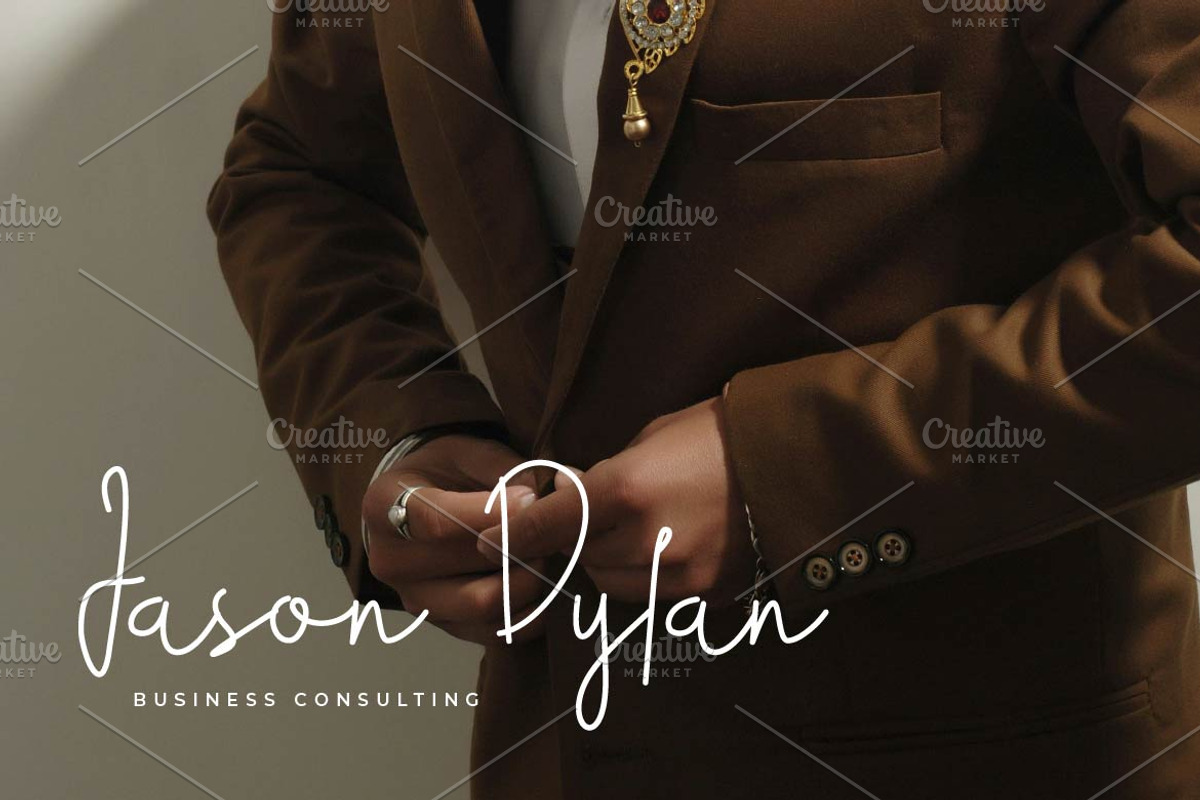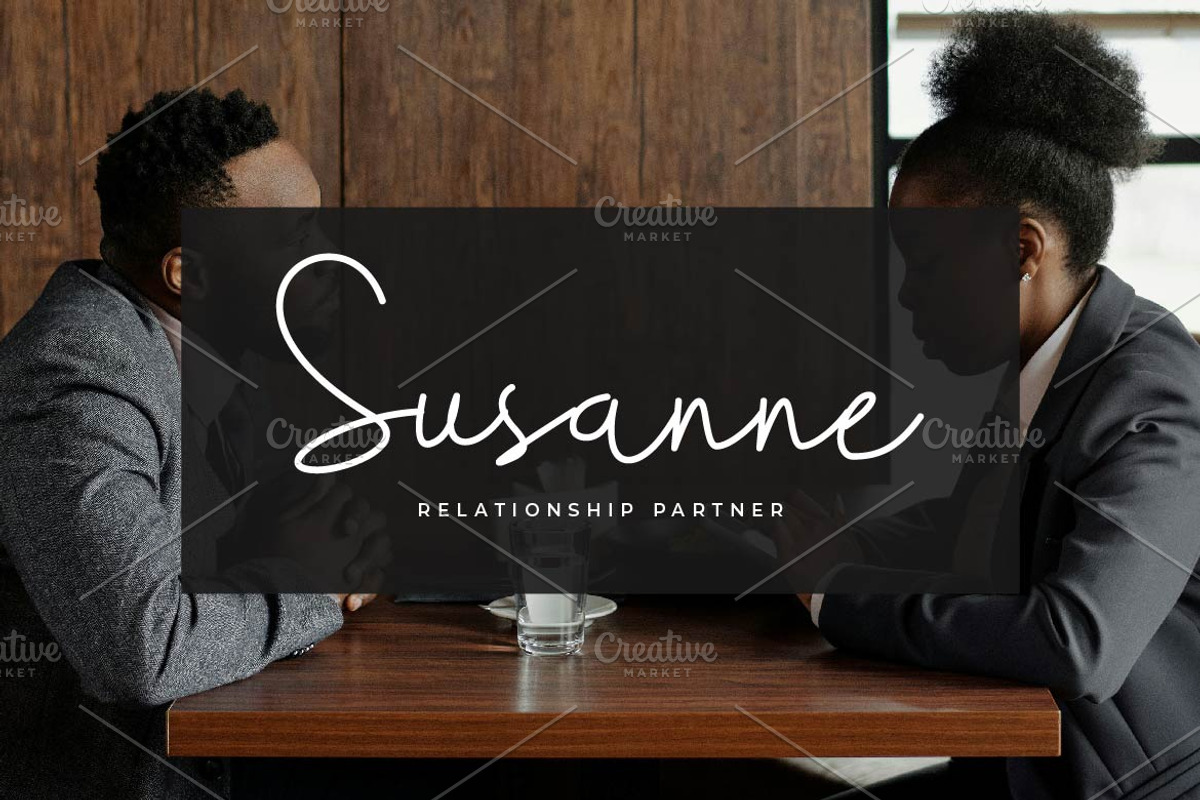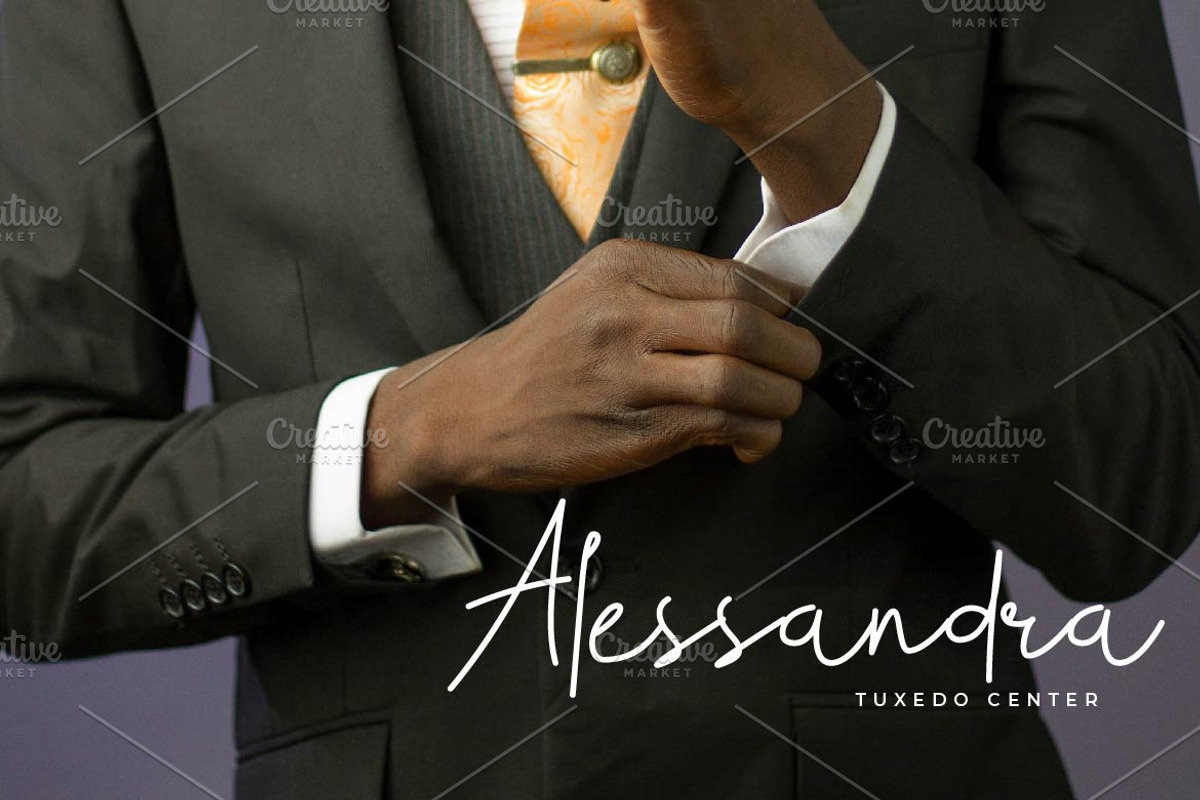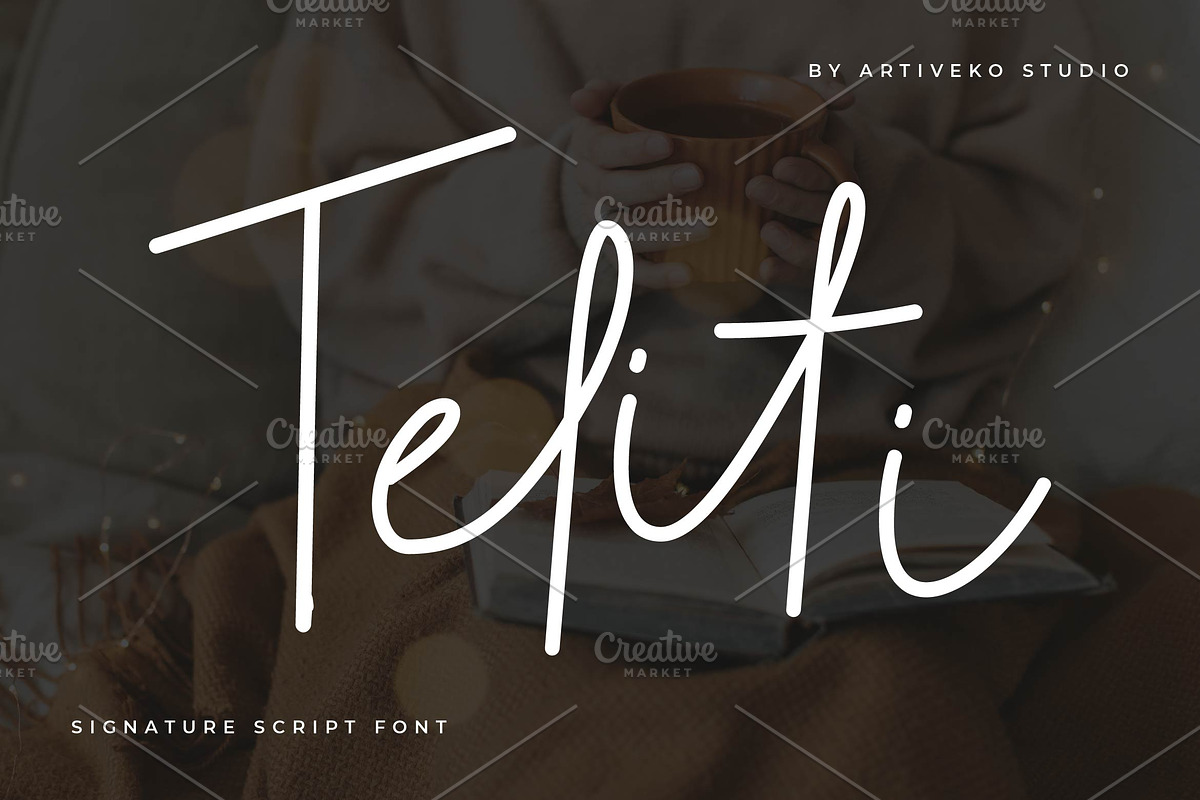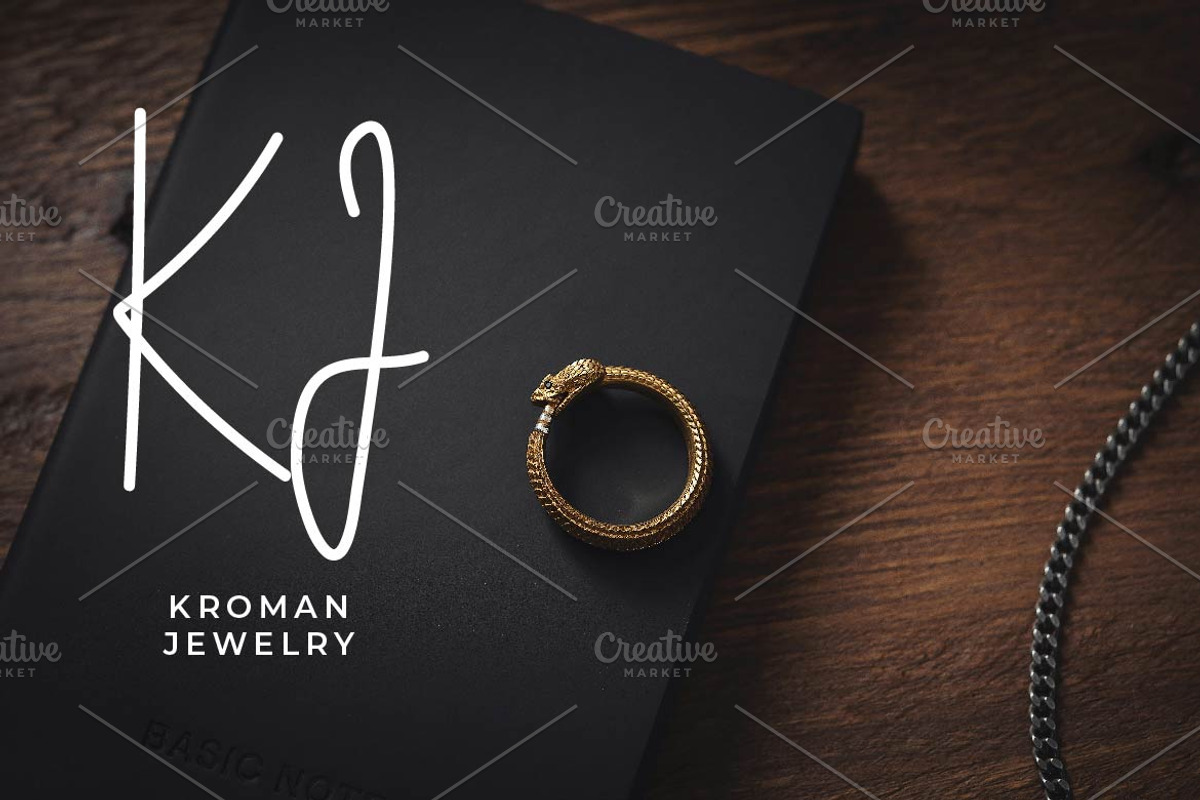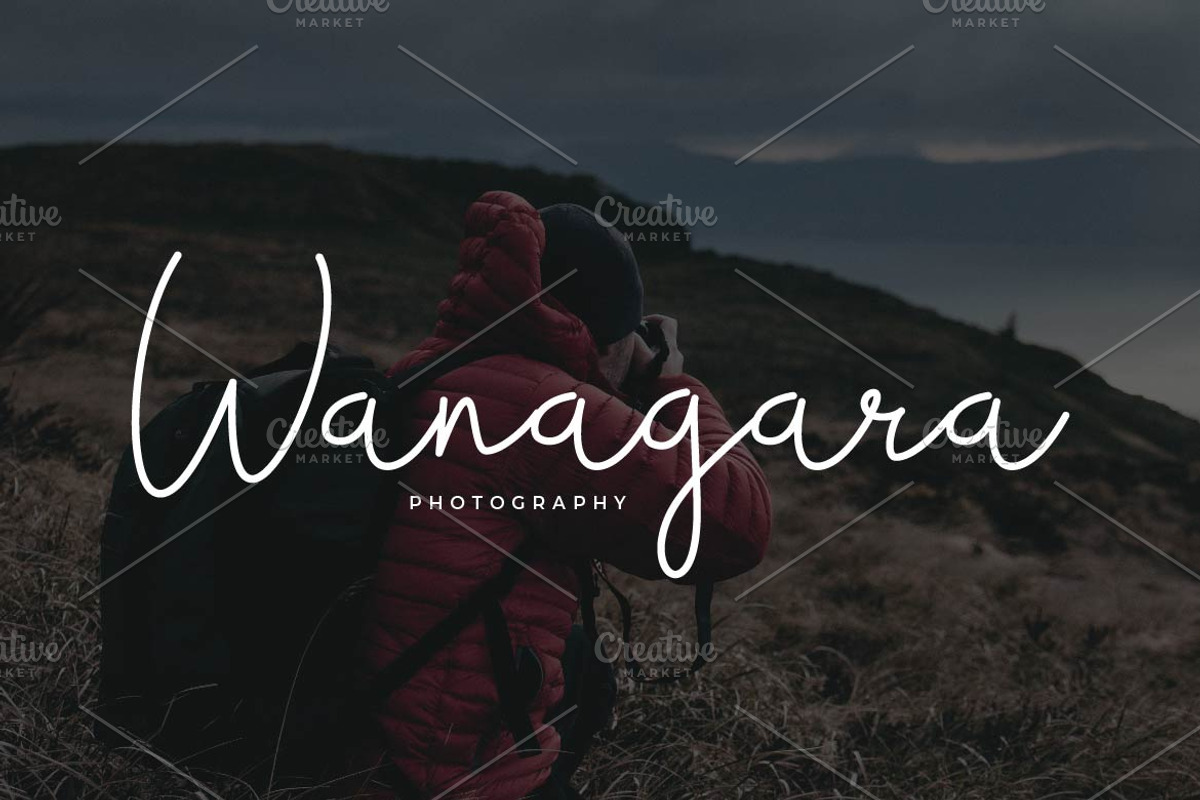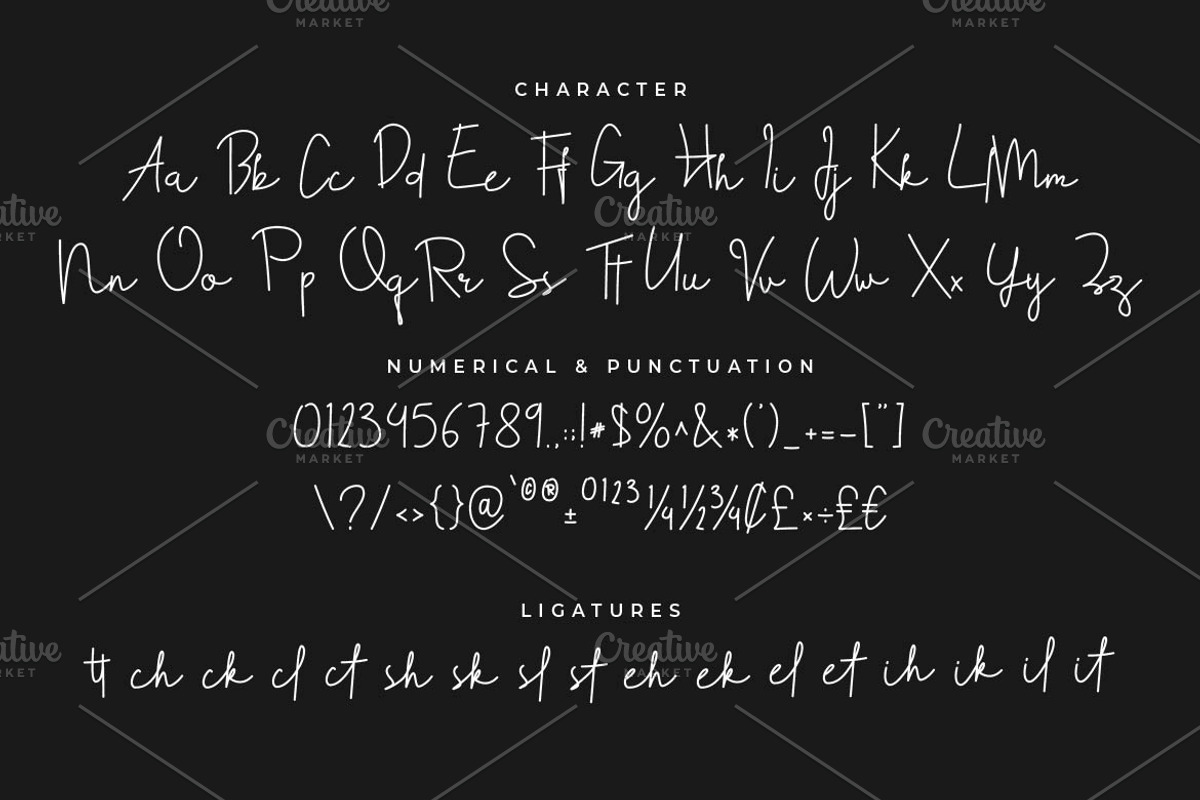
Teliti Signature Script
Teliti is a refined signature script font by Iwan Alwan, featuring graceful, hand-drawn strokes that exude elegance and sophistication. Perfect for personal branding, wedding stationery, logos, and upscale designs, Teliti brings a warm, personalized touch to every project. With multilingual support, ligatures, and alternates, Teliti offers versatility while maintaining its luxurious, handwritten aesthetic, making it ideal for projects that seek a stylish and intimate feel.